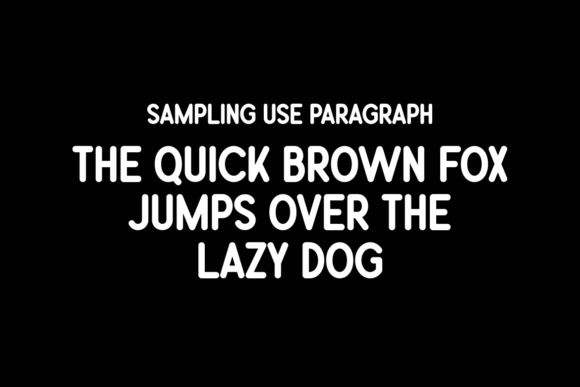
Introduction to Morchinda Font
Have you ever stumbled upon a beautiful design that left you wondering how the designer managed to create such a stunning visual masterpiece? As a designer, I’m sure we’ve all experienced that ‘aha’ moment when we discover a game-changing design resource that elevates our creative projects to the next level. For me, that moment came when I discovered the elegant and modern Morchinda Font.
This high-quality sans serif font boasts a minimalist and clean vibe that’s perfect for a wide range of creative projects, from book covers and magazines to social media posts and invitations. With its transparent background and sleek design, Morchinda Font is a versatile design resource that’s sure to become a favorite among designers.
Key Features of Morchinda Font
- High-quality design suitable for various creative projects, including logos, graphics, and branding materials.
- Features a transparent background, making it easy to customize and integrate into different design elements.
- Includes a large character set, supporting multiple languages, making it a versatile design option.
Honest Review: Morchinda Font
As a designer, I’m always on the lookout for high-quality design resources to elevate my creative projects. Recently, I stumbled upon the Morchinda Font, and I’m excited to share my thoughts on this versatile font.
What works well with the Morchinda Font is its unique aesthetic and the wide range of weights available. ✨ The font’s clean design makes it perfect for modern and sleek designs, while its various weights allow for flexibility in styling headings and body text. I also appreciate that the font is free to download, making it an excellent resource for designers on a budget.
Some potential limitations of the Morchinda Font include its limited language support and the lack of italics. ⚠️ While these features may not be deal-breakers for some designers, they could be a concern for those working on projects that require extensive language support or need to include italics.
Overall, I’m impressed with the Morchinda Font’s potential as a design resource. Its high-quality design and transparent background make it a great choice for a wide range of creative projects.
- Unique aesthetic and versatile design
- Wide range of weights available
- Perfect for modern and sleek designs
Tips and Use Cases
Morchinda Font is perfect for a variety of use cases, including logos, posters, and brochures. For getting the most out of it, experiment with different font sizes and styles to create a unique look. You can also combine Morchinda Font with other design elements to create a cohesive and visually appealing design.